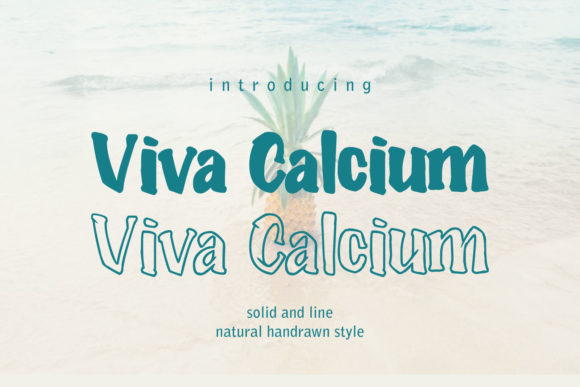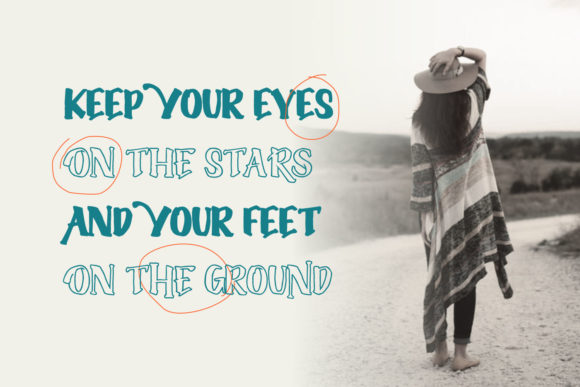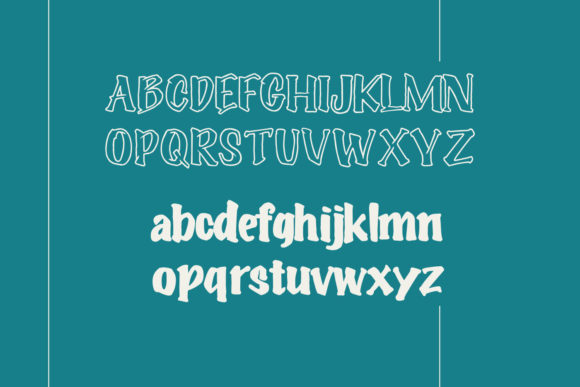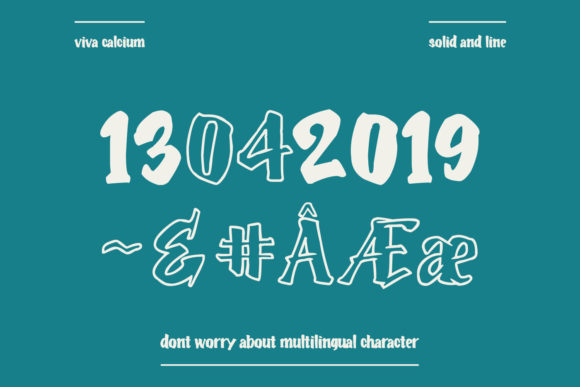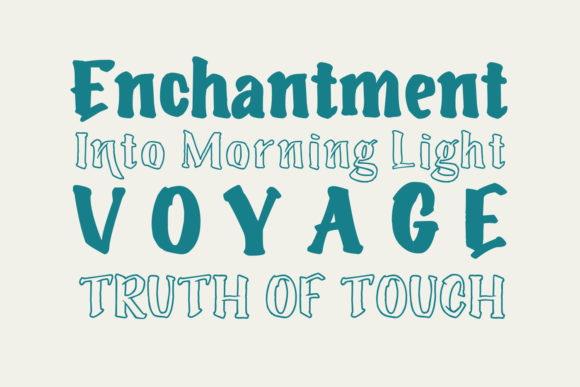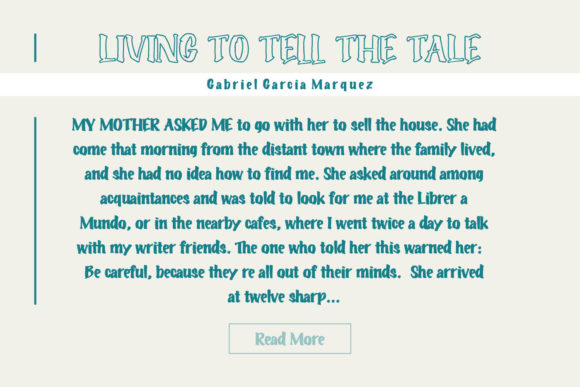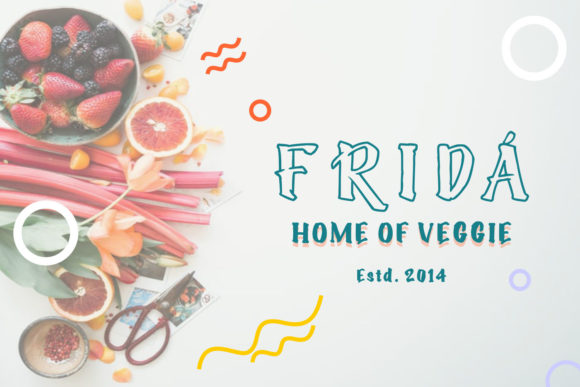
Viva Calcium Font
About Viva Calcium Font
Viva Calcium is a natural script font, coming in two versions, solid and line. Use it to add an authentic feel to any design project!